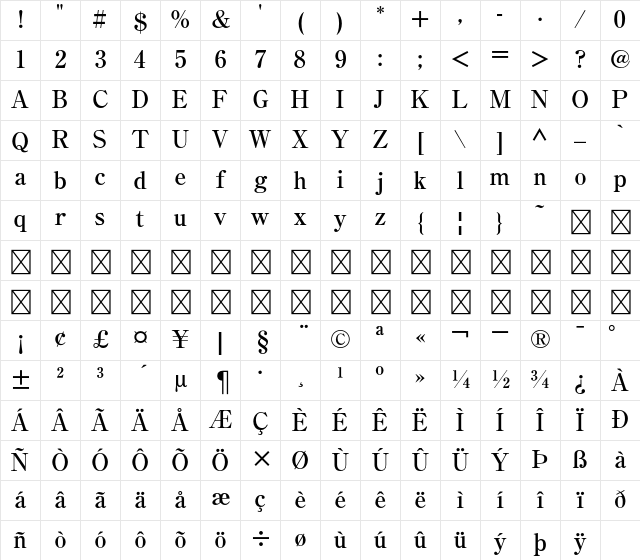
A-OTF Midashi Min MA1 Std Bold
Design Context for A-OTF Midashi Min MA1 Std
A-OTF Midashi Min MA1 Std is a composed and adaptable typeface that performs quietly and consistently across a wide range of design contexts. Its bold stroke weight gives it real presence on the page.
Pro Tip: Use A-OTF Midashi Min MA1 Std in both headline and body roles to test its range before committing to a single application.